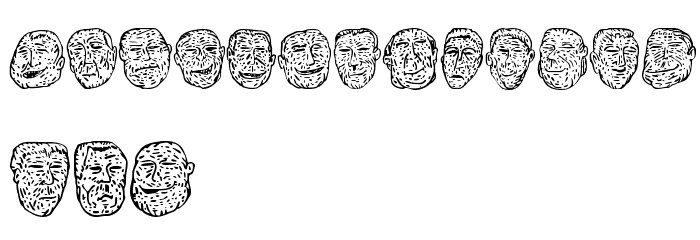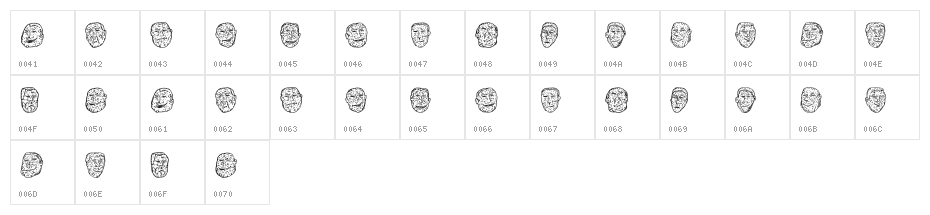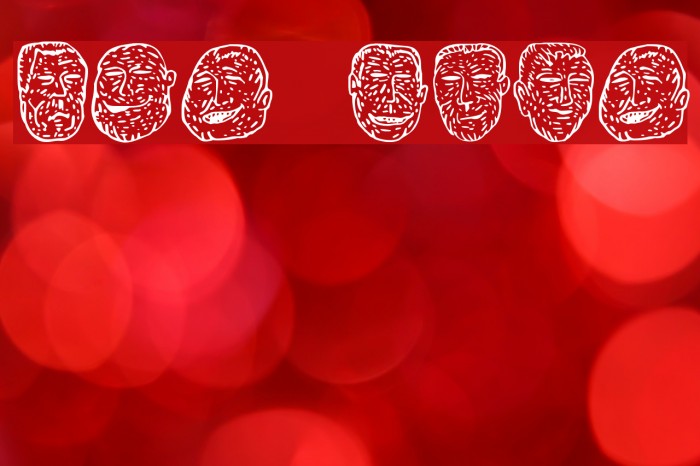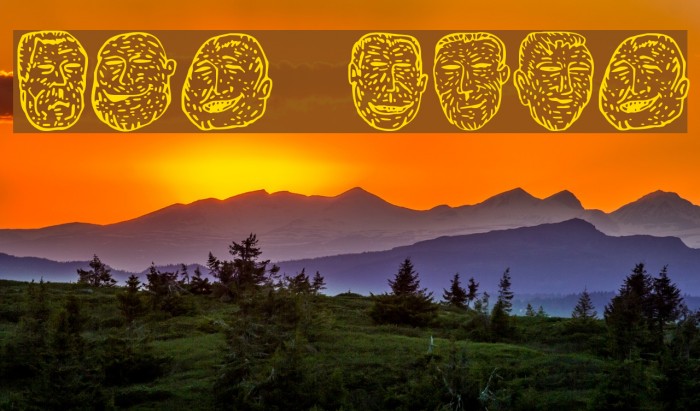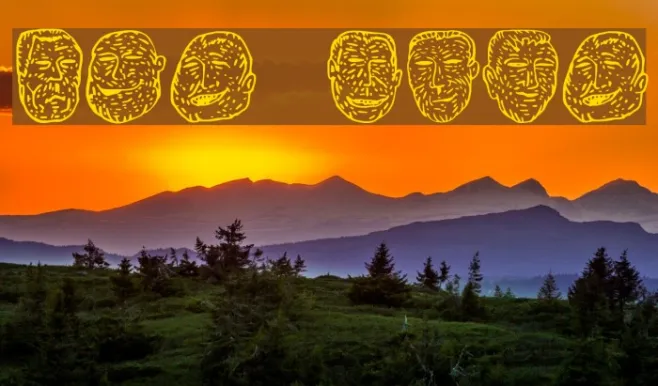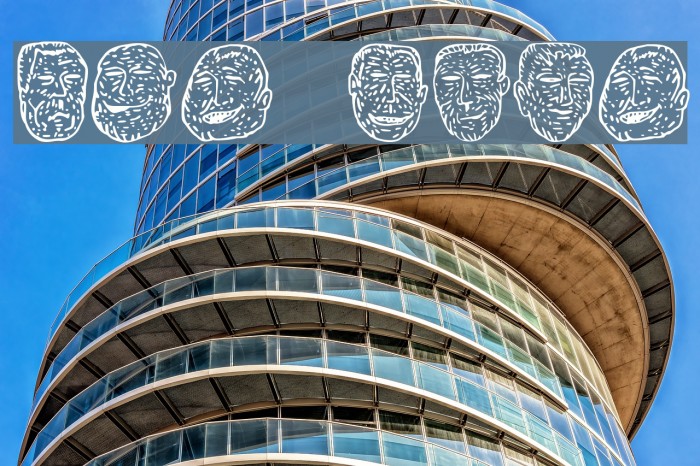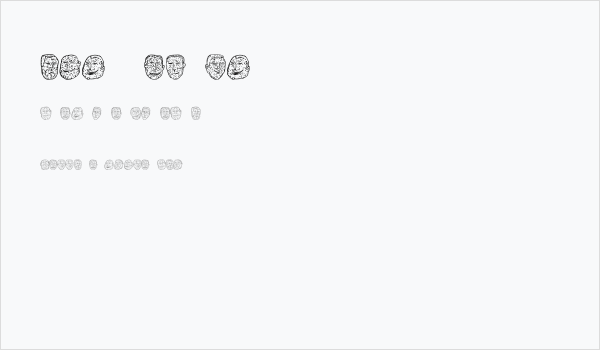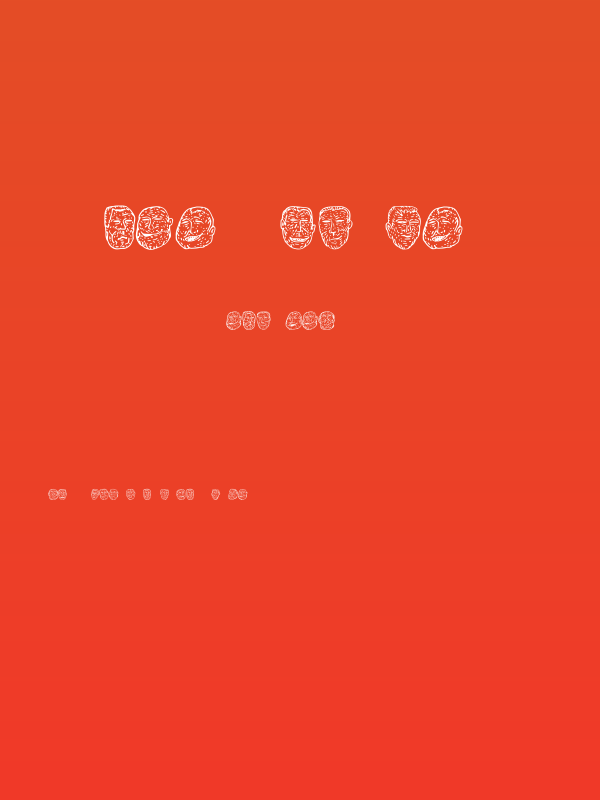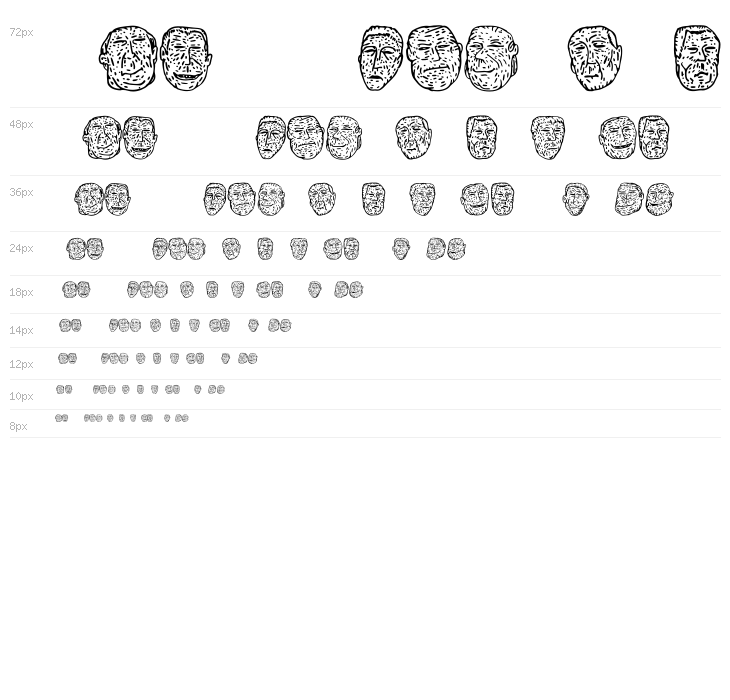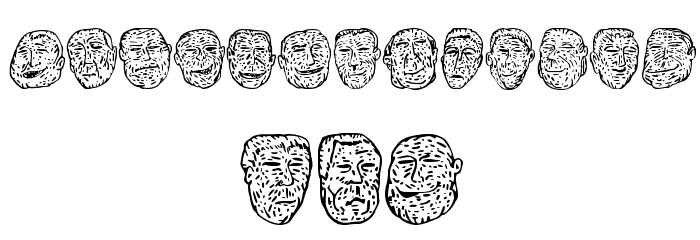
Opa Regular Font
Opa Regular Description
This font features a unique and artistic design where each character is represented by a detailed illustration of a face. The faces are intricately drawn with various expressions, giving the font a playful and creative appearance. The characters are consistent in style, with a hand-drawn quality that adds a personal touch. The overall look is decorative and unconventional, making it stand out for its artistic flair. The font is not suitable for body text due to its complex design but can be used effectively for headlines or artistic projects where a bold statement is desired.
| Overall Style | Artistic, Playful |
| Use Case | Headlines, Artistic projects |
| Proposed Projects | Ideal for artistic projects, posters, album covers, or any creative work that requires a unique and eye-catching typeface. |